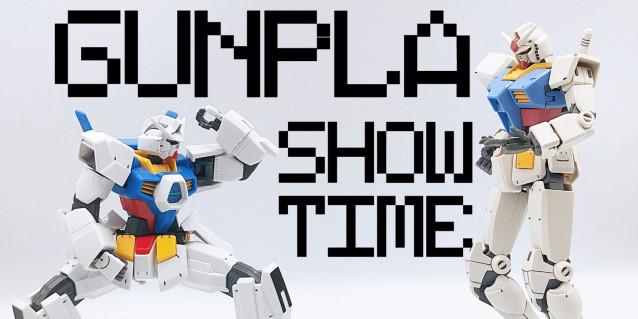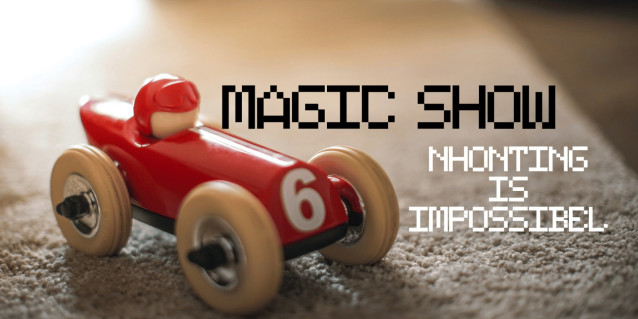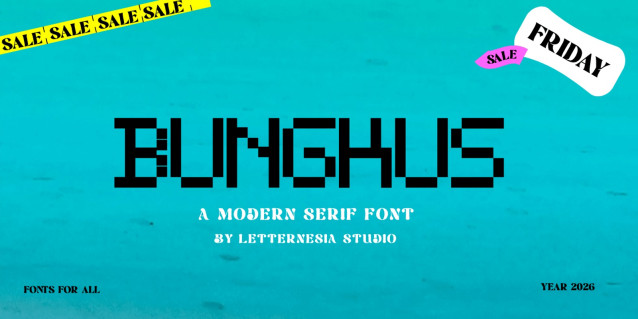
Bungkus Font
Bungkus Font is a powerful display typeface crafted to do one thing perfectly: grab attention instantly and make your designs impossible to ignore. With its bold, chunky letterforms and striking personality, BUNKUS delivers a strong visual impact that stands out in any layout. The design blends modern aesthetics with a playful edge, making it highly versatile while still maintaining a unique and memorable look. Every character is carefully shaped to ensure maximum readability with maximum style—a key combination for designers who want both creativity and commercial value.